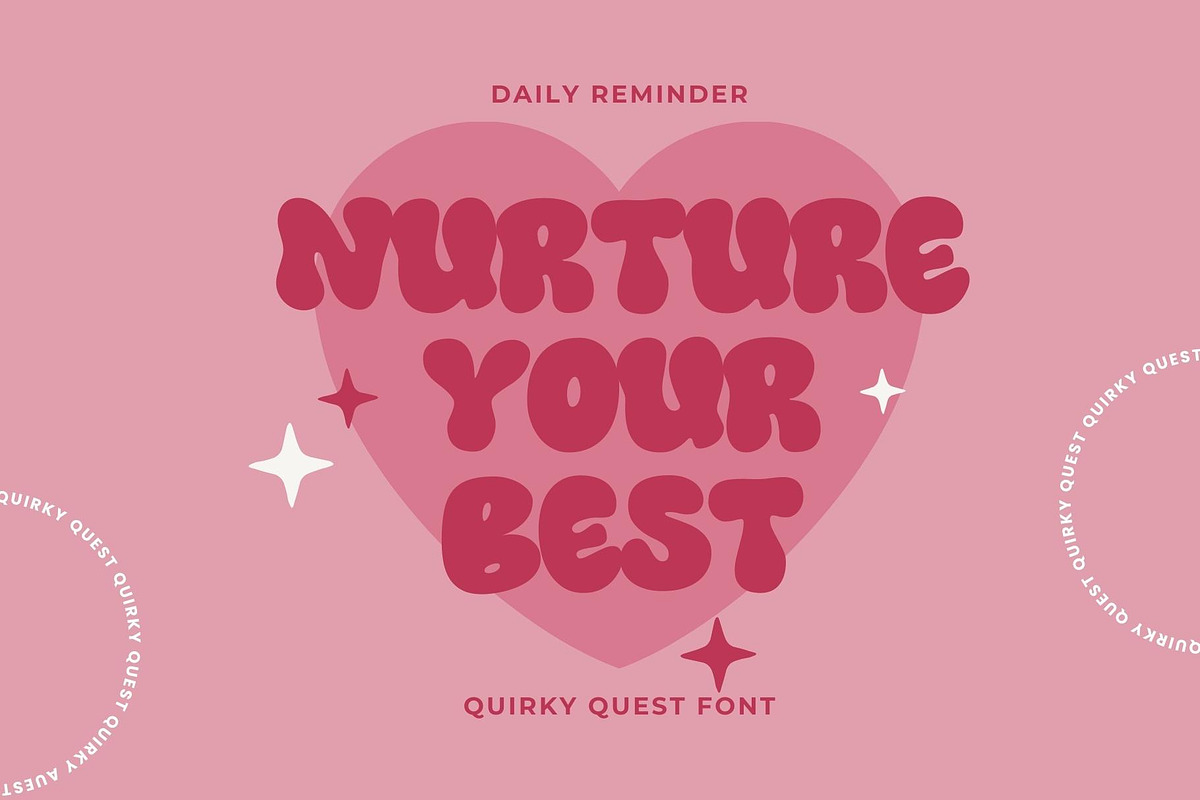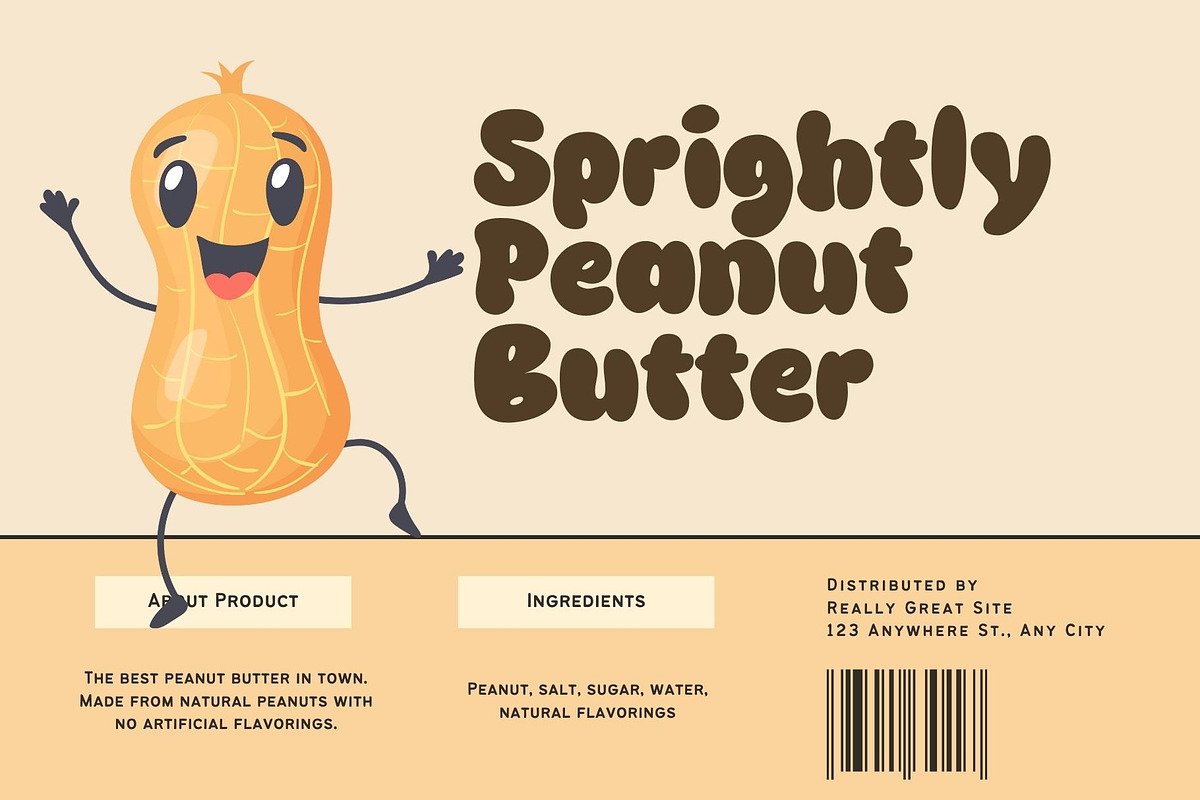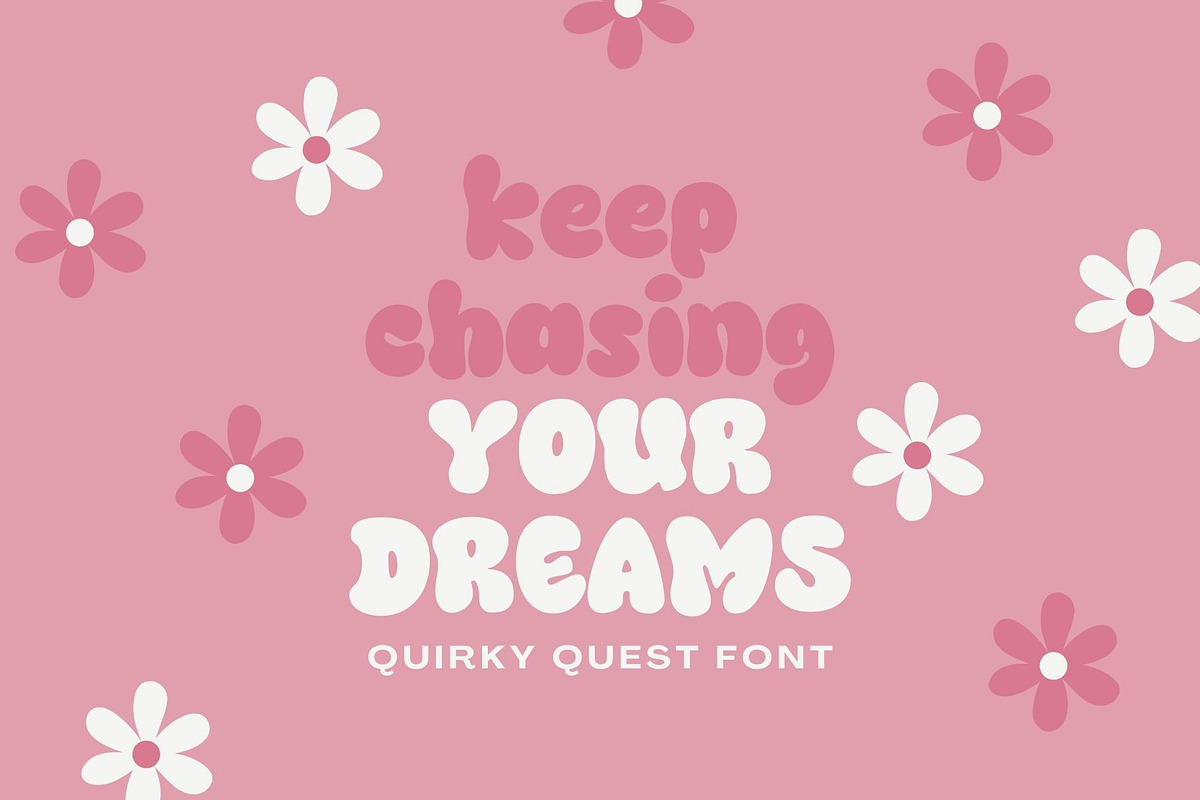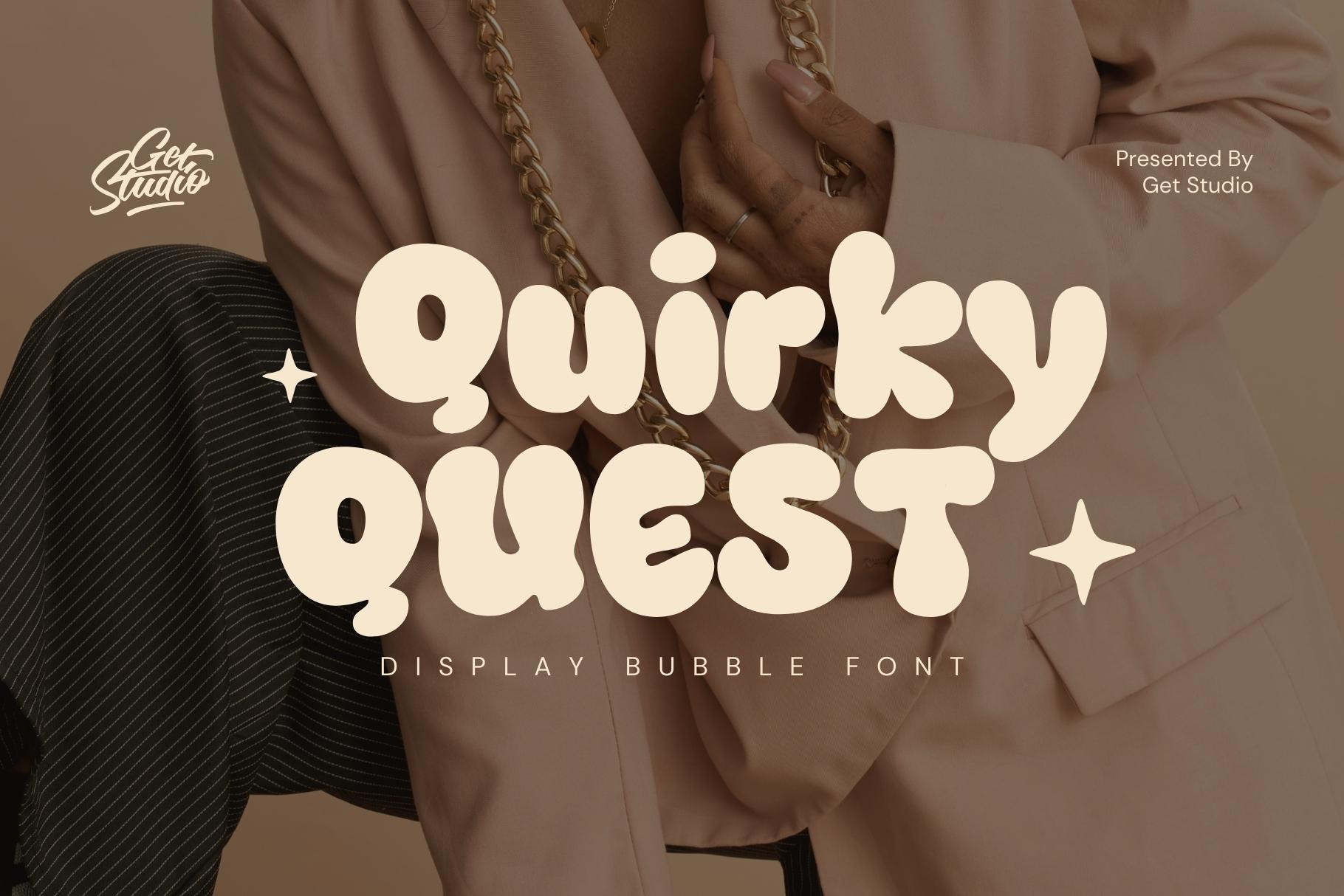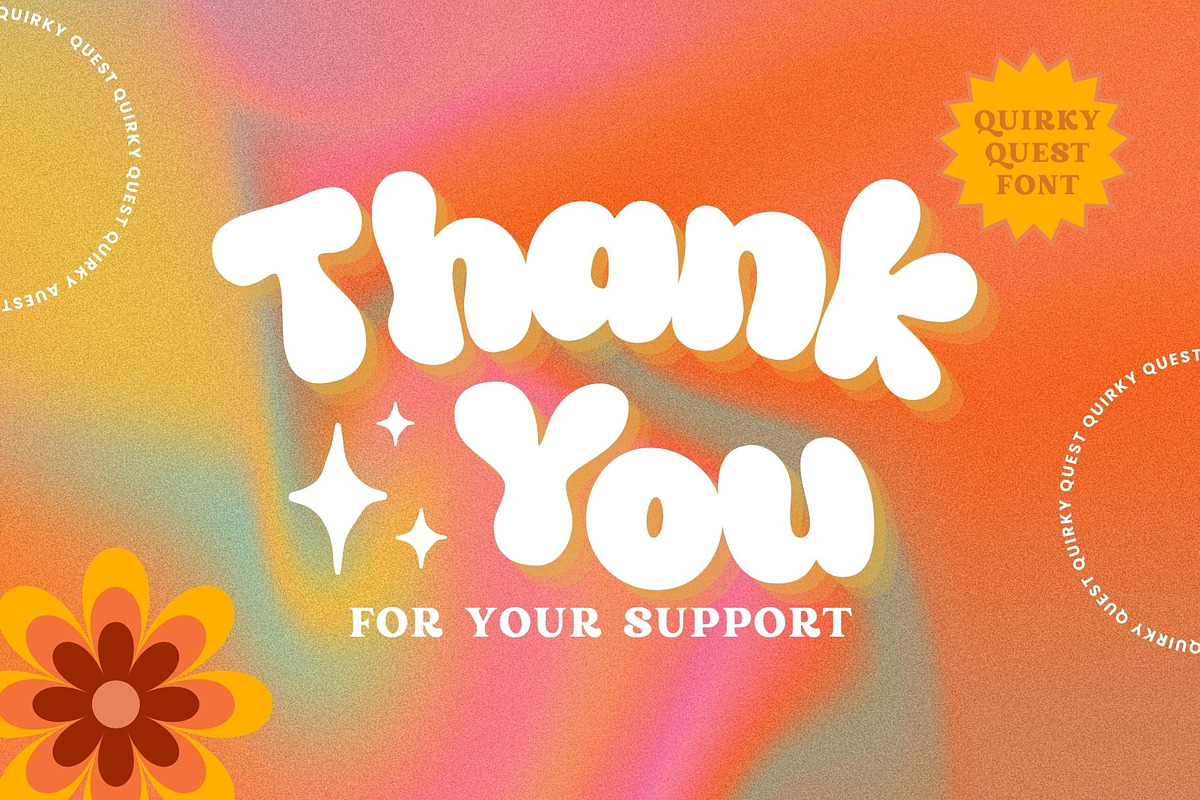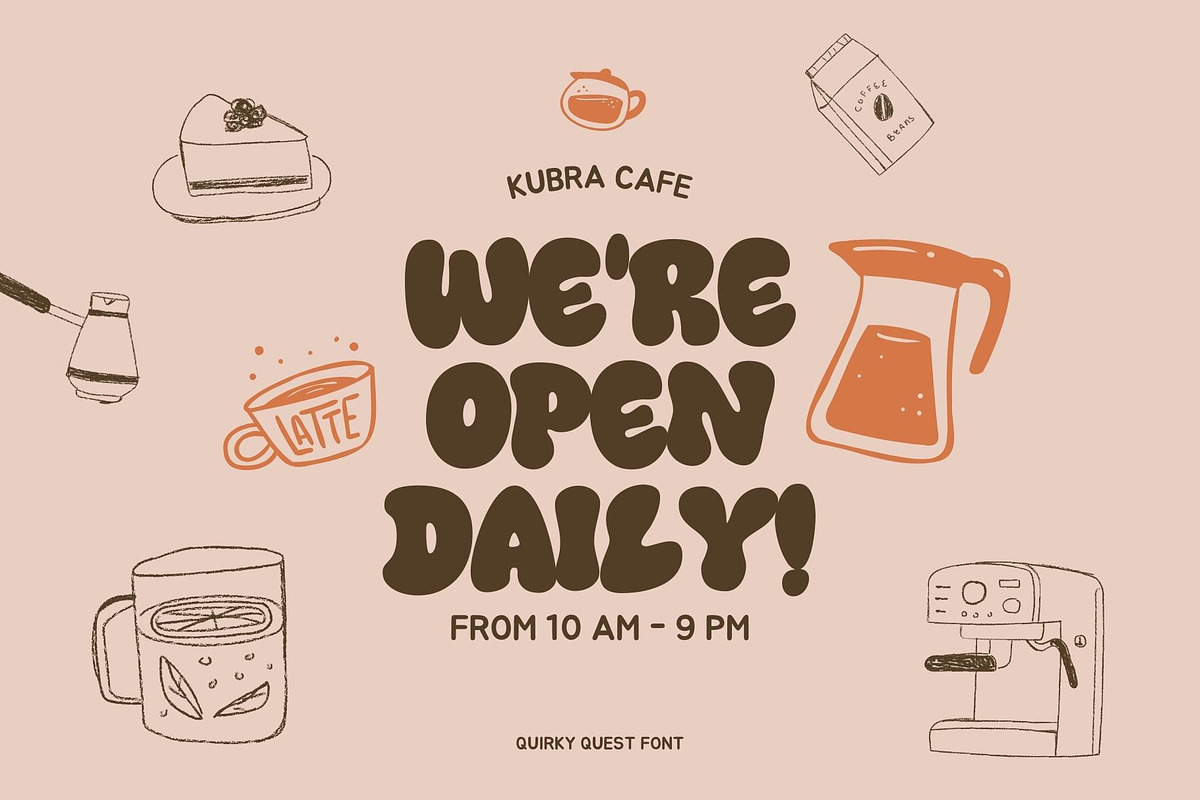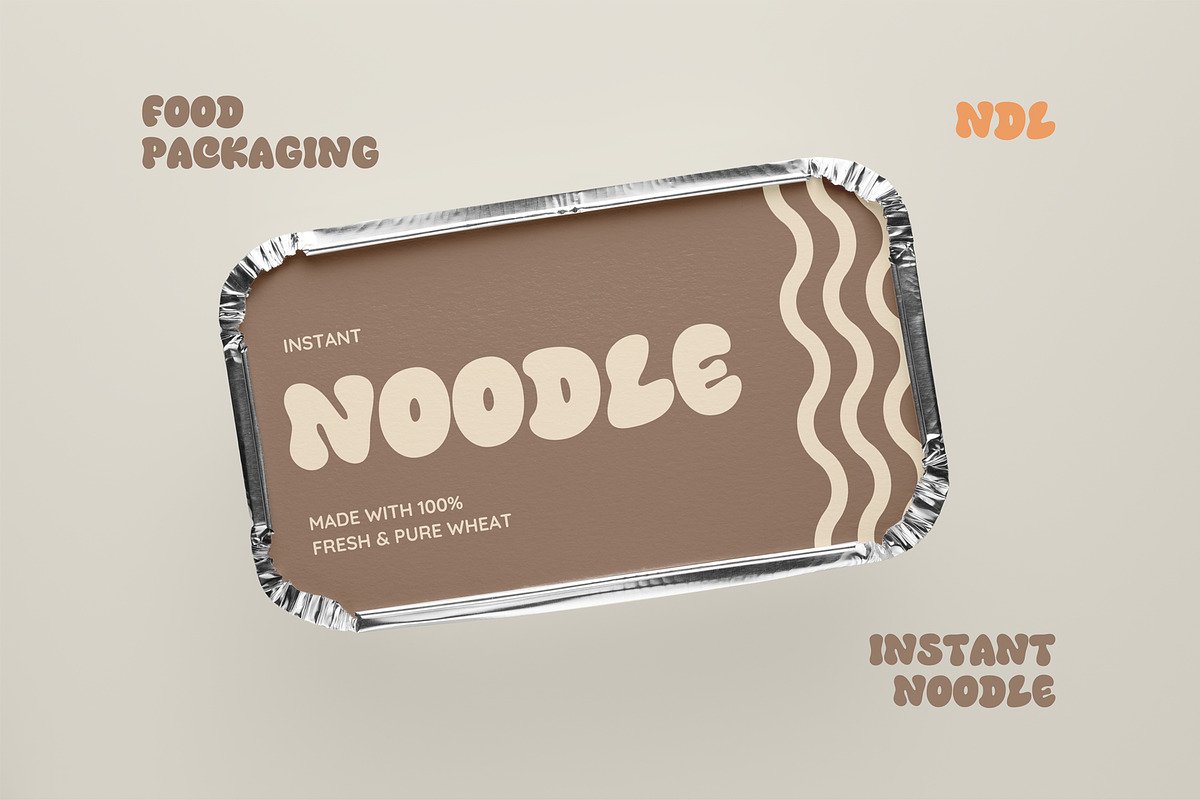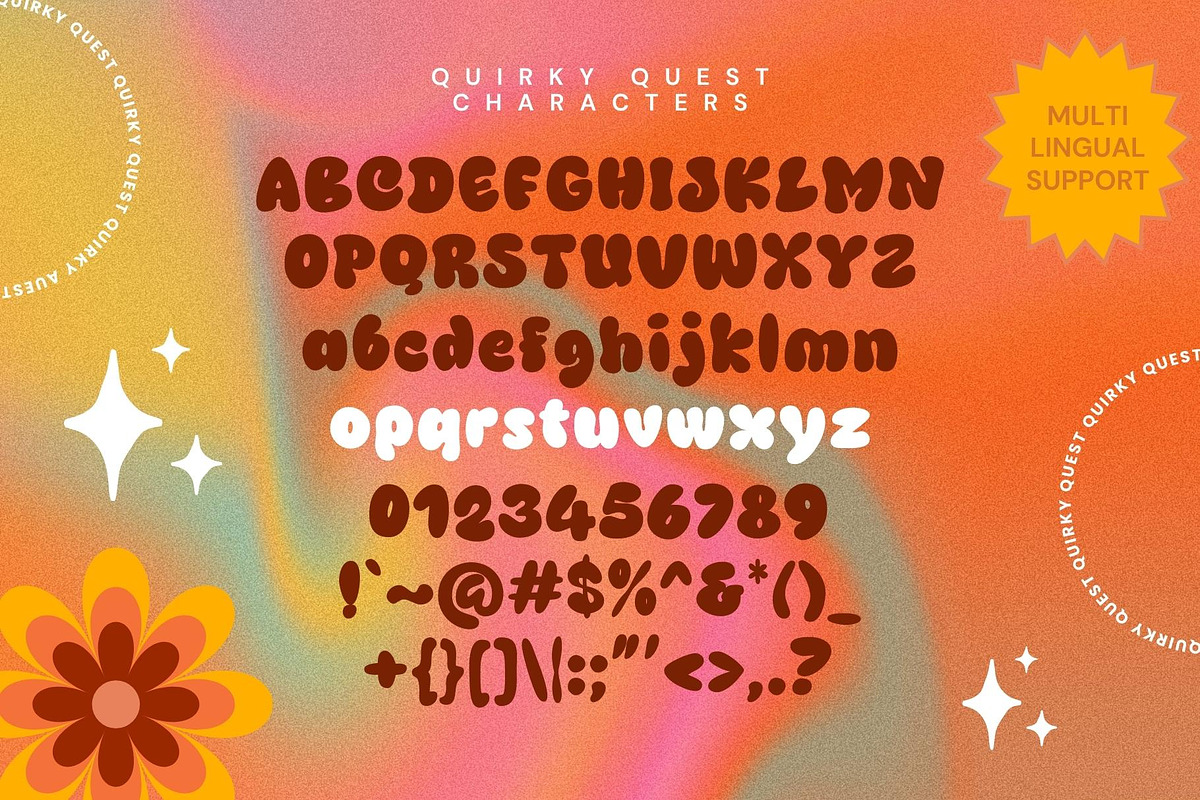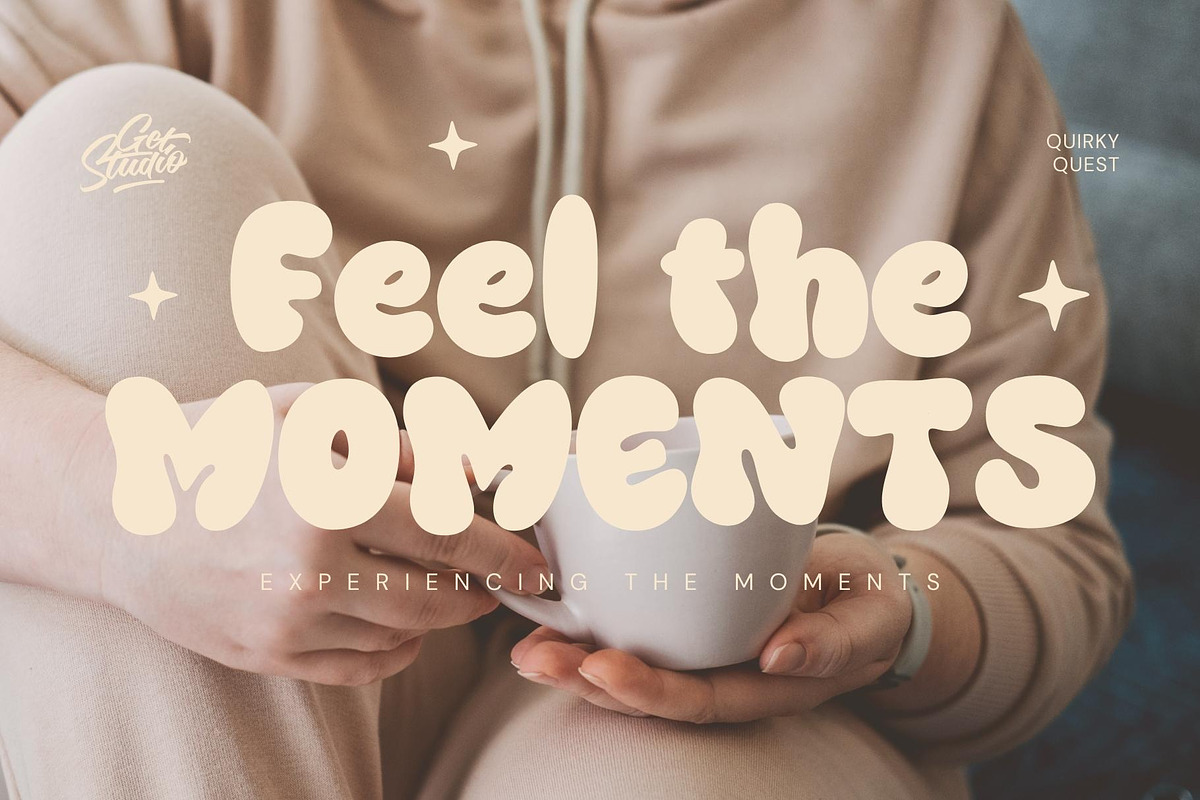
Quirky Quest - Bubble Display Font
Quirky Quest is a bold bubble display font that is a visually striking typeface characterized by thick, rounded letterforms that exude a sense of confidence and playfulness.
The letters feature smooth, curved edges, resembling bubbles that give the font a lively and dynamic appearance. The bold design ensures high visibility, making it well-suited for attention-grabbing headlines, posters, or any creative project where a bold and charismatic typographic style is desired.
This font adds a touch of modernity and friendliness to your text, making it memorable and engaging for your audience.